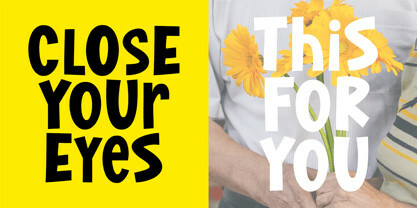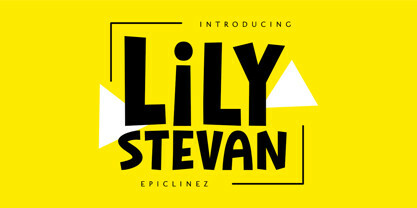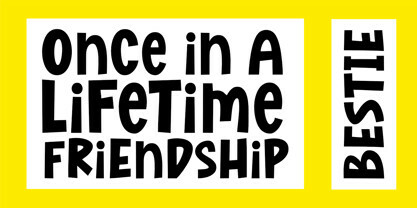
Lily Stevan Font
Lily Stevan FontYou know that feeling when you see something and you’re like “Hey, I like this!”? Hopefully, Lily Stevan is that font. With its clean lines and playful design, it’s perfect for fun little sayings, logos, and headlines. It’s easy to use and will make your designs pop right off the page.